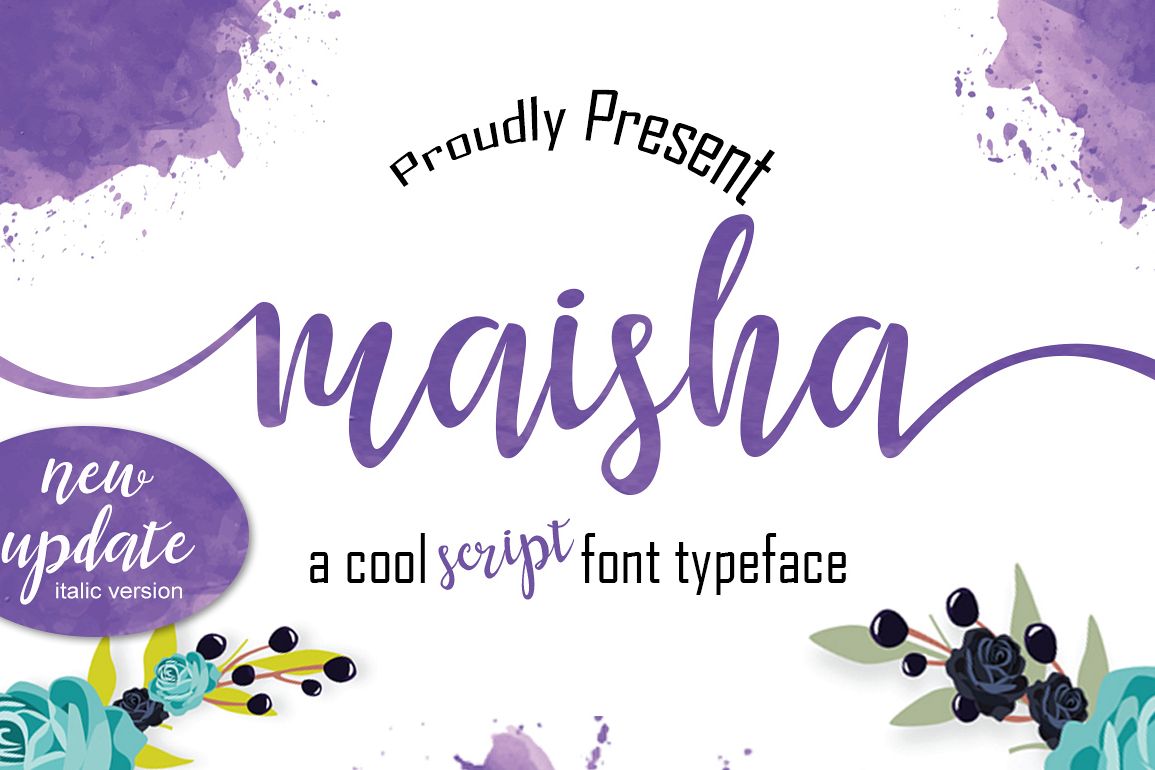
Maisha Script
is a handwriting font that is modern and cool daat used in greeting cards, wedding invitations, business cards and also suitable for the purpose in the world of photography and more.
Maisha Script